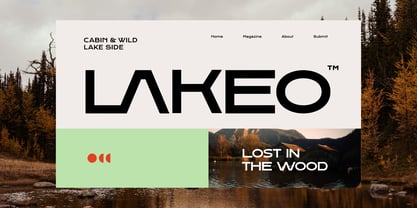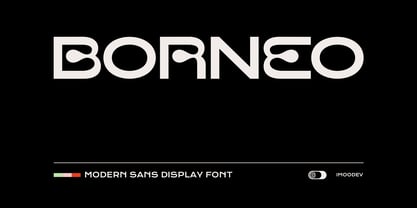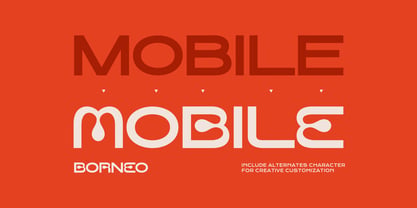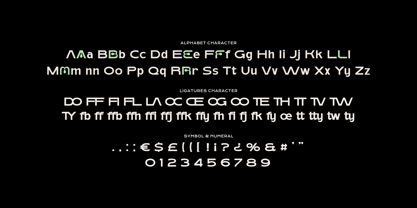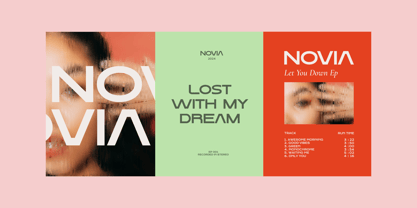
Borneo
Die Schriftfamilie Borneo wurde von Aulia Savira Putri entworfen und von Imoodev veröffentlicht. Borneo enthält 1 Stile. Mehr über diese Familie
Elevate your design projects with Borneo, a bold and experimental display sans serif that strikes a perfect balance between architectural structure and organic fluidity. Characterized by its unique "ink trap" inspired cutouts and liquid like alternate characters, Borneo is designed for creators who want to push the boundaries of modern typography. Whether you are crafting a fashion logo, a futuristic tech interface, or a minimalist editorial layout, Borneo provides a sophisticated aesthetic that is both timeless and cutting edge. Its wide stance and generous letterforms ensure high impact for headlines, while the extensive set of ligatures and alternates allows for endless creative customization. Perfect for branding, poster design, album covers, social media graphics, and web headers.